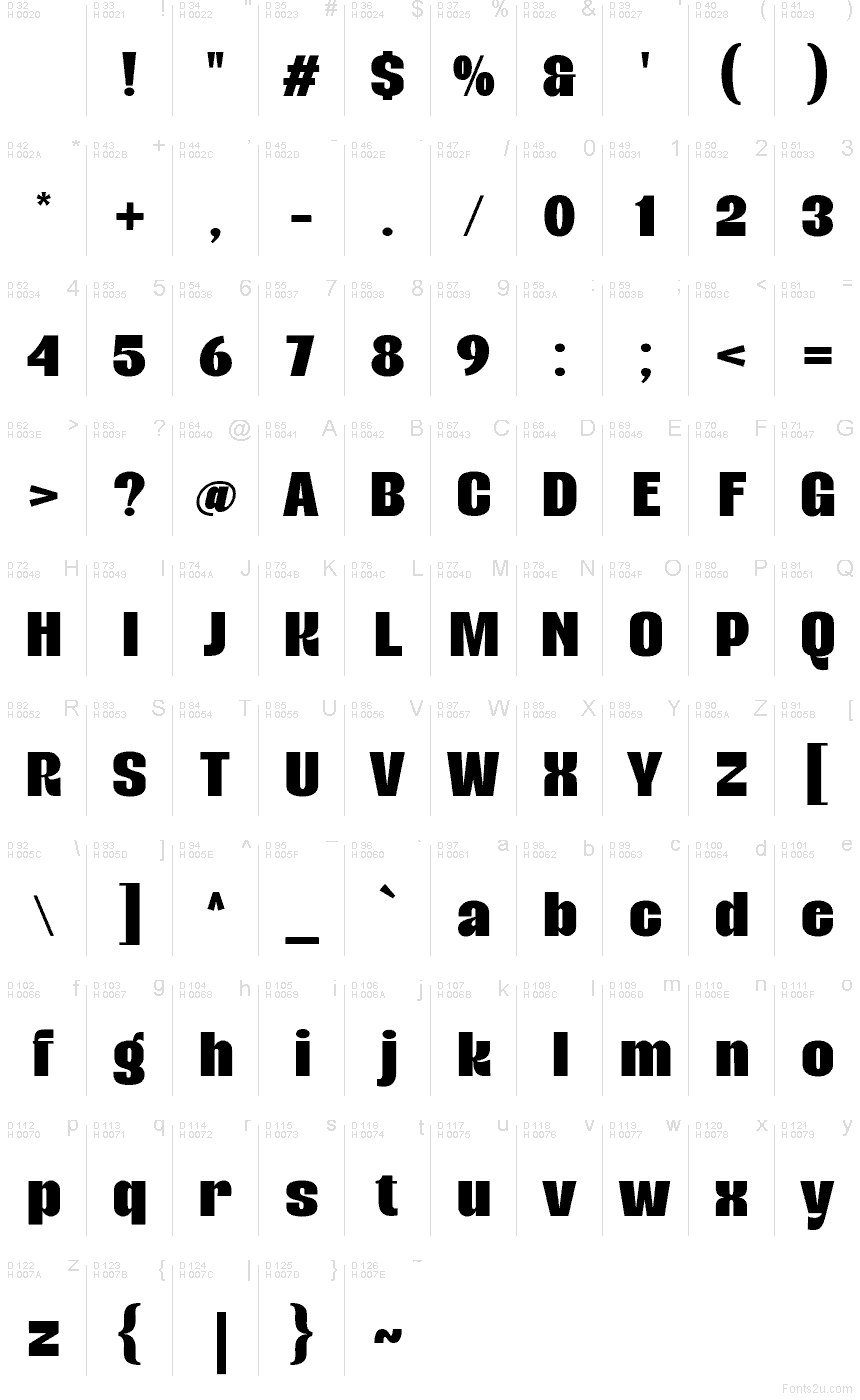
Khelyn
Khelyn font by Burhan Afif of HansCo Studio is a free bold sans serif font, and this typeface hits with thick, inky strokes and confident cut-ins that make the word shape feel carved rather than drawn. The tight rhythm and chunky curves give it a punchy, modern-retro energy that reads fast while still looking distinct.
Using Khelyn, you’ll get strong results on logos, streetwear graphics, poster headlines, album covers, product packaging, social ads, and punchy YouTube thumbnails. Keep it big and give it a little breathing room so the dark shapes don’t clump. Pair this free font with a clean, neutral grotesk (or a simple text serif) for body copy to let Khelyn do the talking.